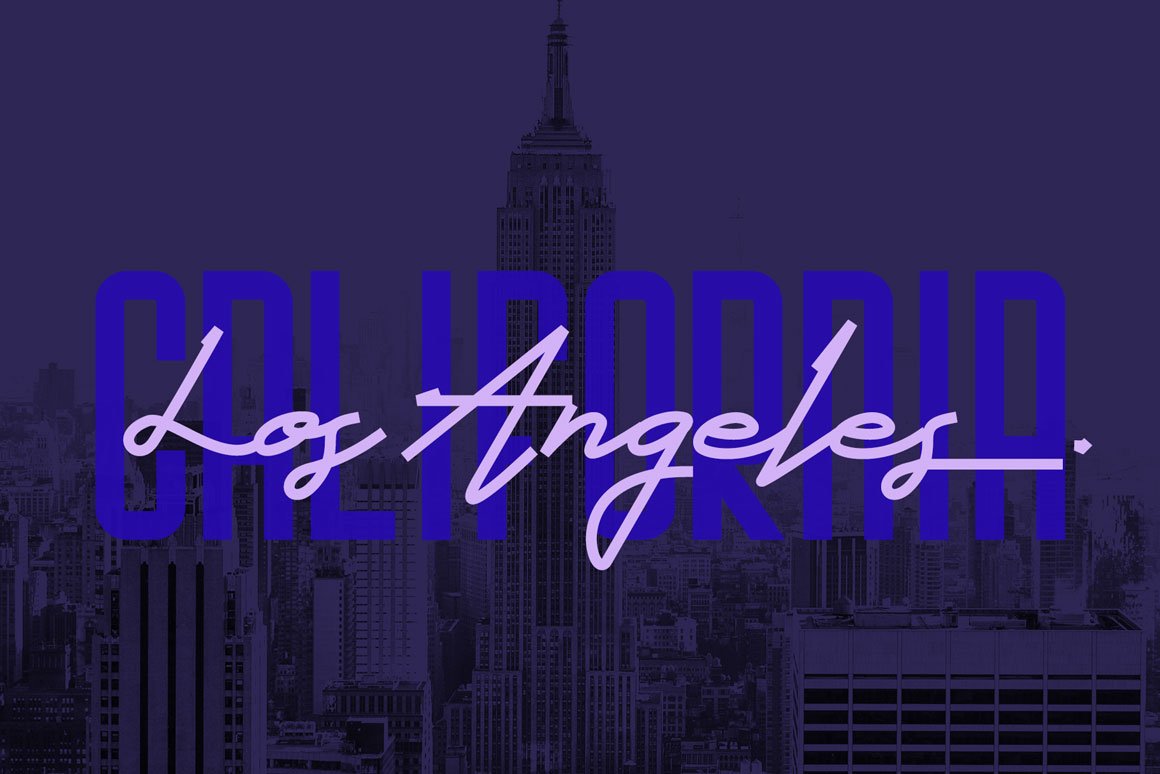
Free Mirwana Font Duo
Take a look at this stunning free mirwana font duo. Pixelify has created this amazing and beautiful typeface. This is absolutely beautiful font so you can easily make world-class designs.